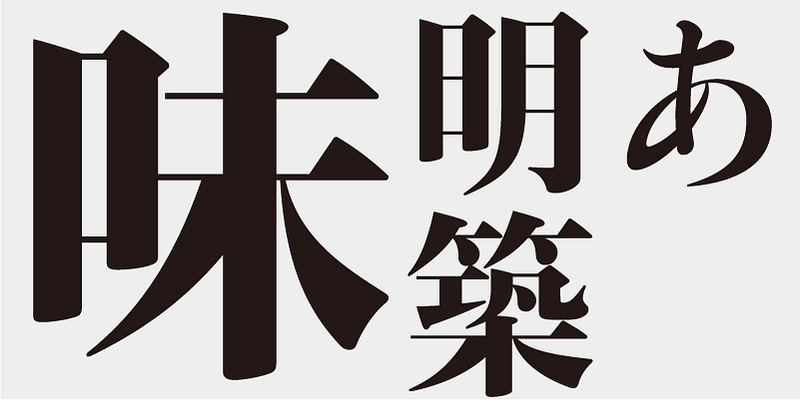
AB Ajimin Modern Chiku/EB Font Free Download is a beautifully designed extra bold serif typeface that blends traditional Japanese Mincho influences with modern typographic refinement. The Chiku/EB variation is characterized by high contrast, sharp serifs, and strong vertical strokes—ideal for editorial headlines, high-end branding, book titles, and visual storytelling that needs a mix of heritage and contemporary sophistication.
This font captures the essence of calligraphy with its elegant brush-style details, while offering the clarity and structure needed for modern layouts. Supporting both Japanese and Latin scripts, AB Ajimin Modern Chiku/EB is a perfect fit for bilingual or international design projects that require a cultured and authoritative tone.